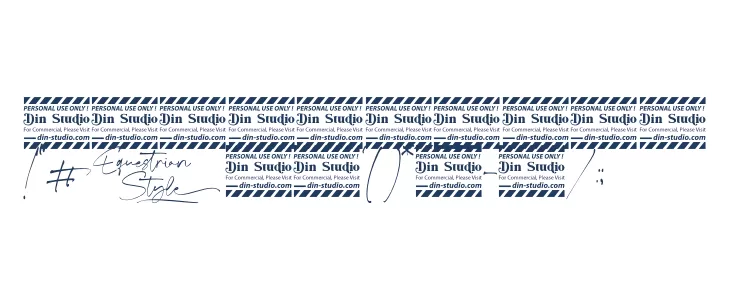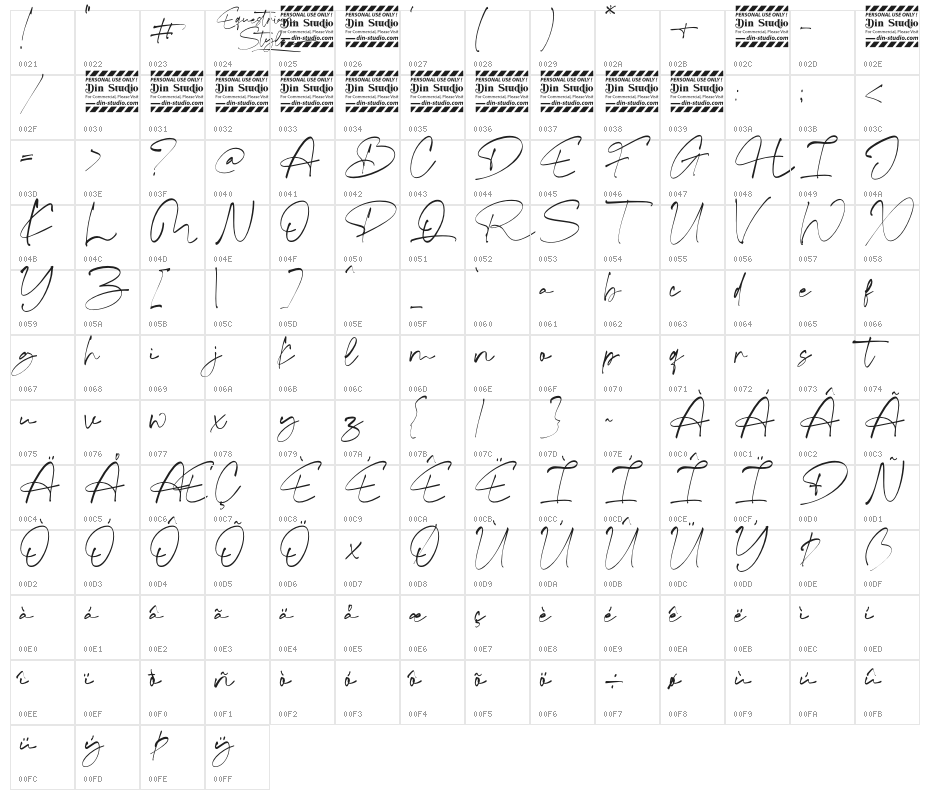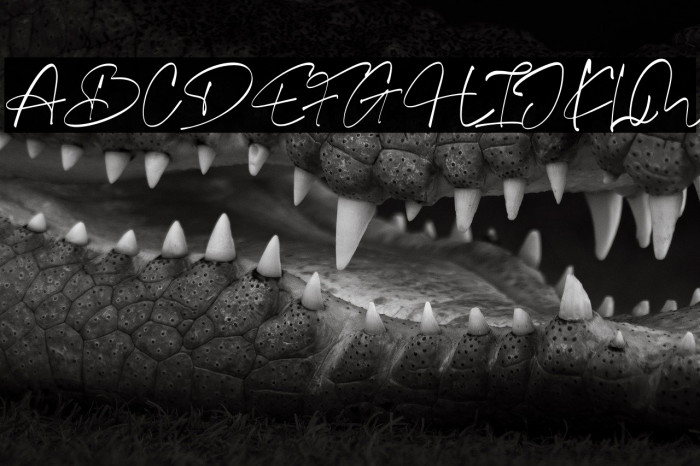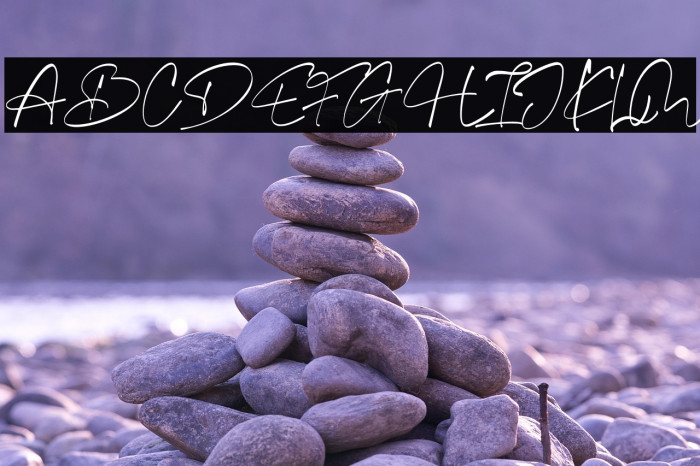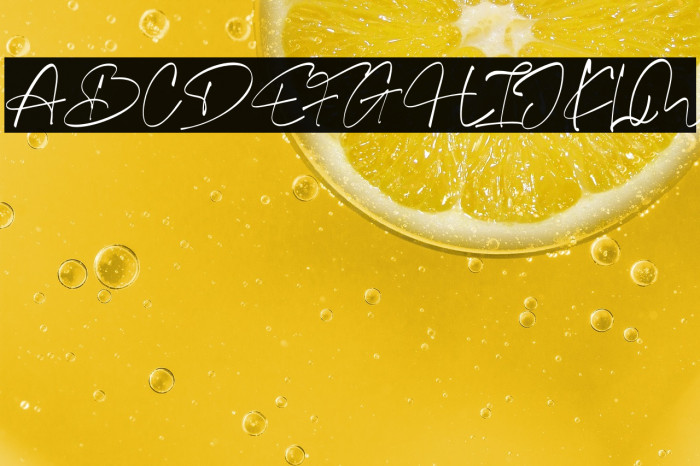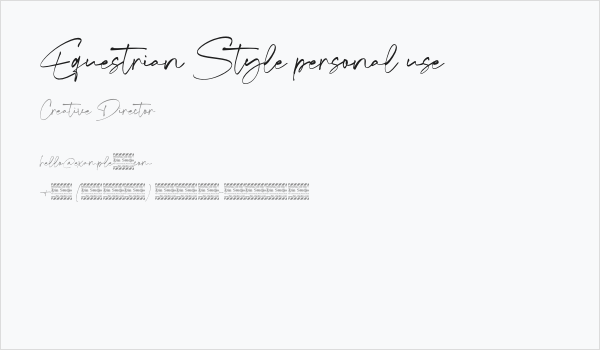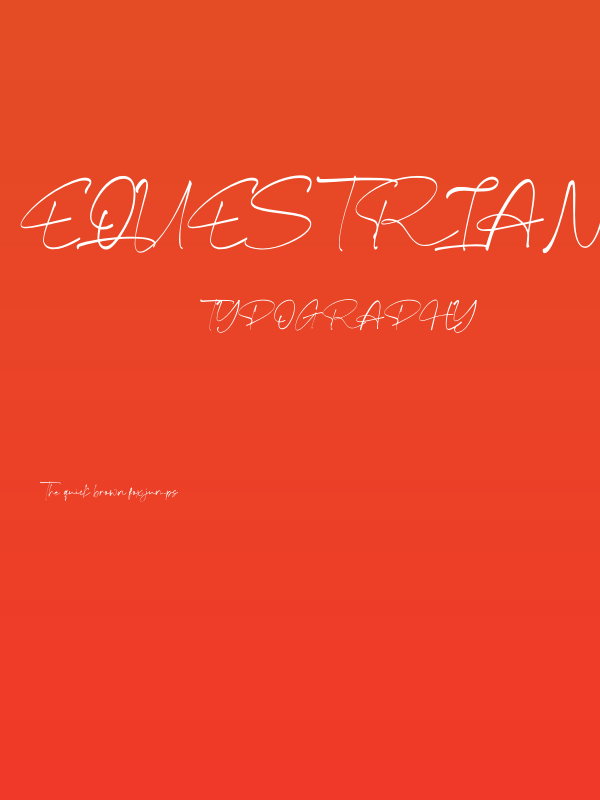
Equestrian Style personal use Font
Equestrian Style personal use Description
This font exudes a dynamic and elegant handwritten style, characterized by flowing, interconnected strokes that mimic the fluidity of cursive handwriting. The uppercase letters are tall and slender, with a slight slant that adds a sense of motion and grace. The lowercase letters maintain a consistent style, with loops and curves that enhance the overall aesthetic. The font includes a variety of special characters, maintaining the same fluidity and elegance. Its design is reminiscent of calligraphy, making it suitable for projects that require a personal and artistic touch.
| Overall Style | Elegant, Artistic |
| Proposed Projects | Ideal for wedding invitations, personal branding, artistic projects, and elegant stationery. |